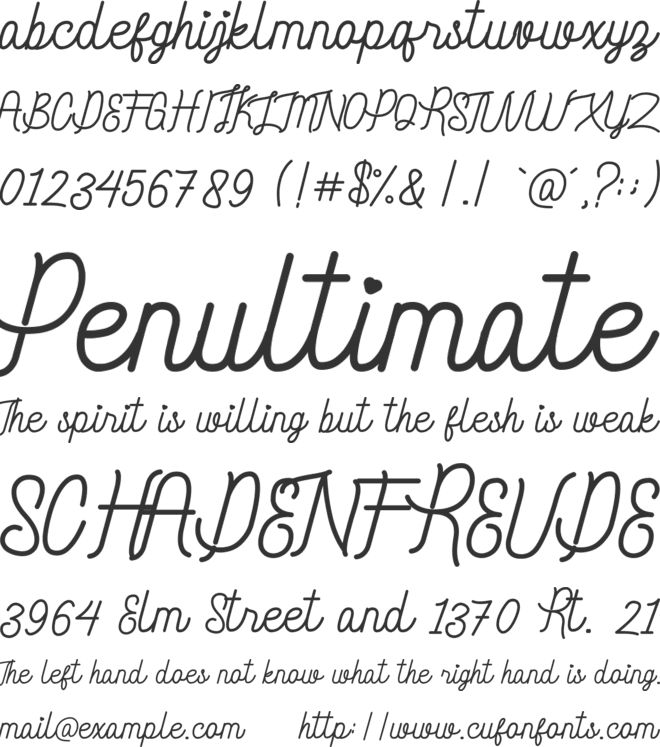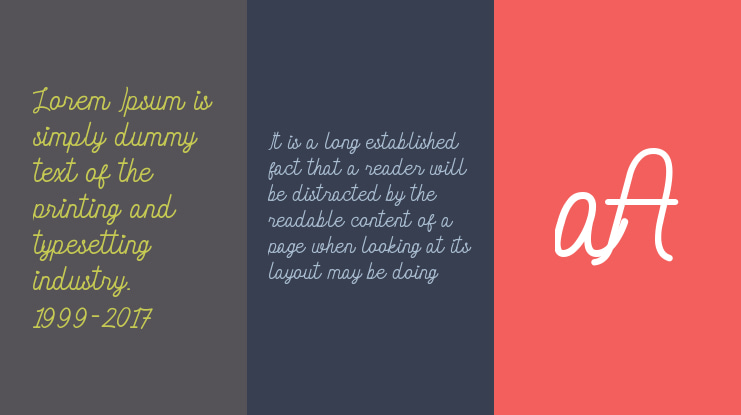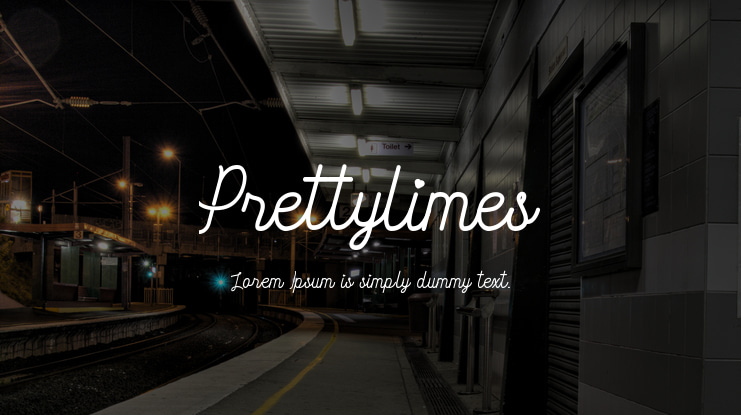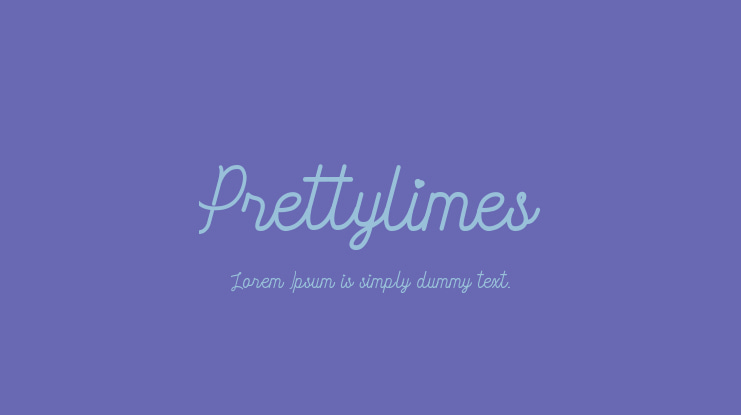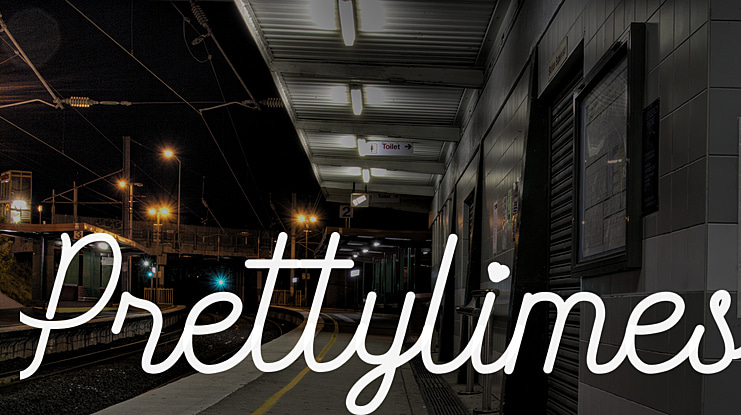
Prettylimes Font
Prettylimes is a beauty monoline font for signature, template design, wedding invitations, display tittle, and many more. This font sweet and friendly monoline font. Its natural style makes it incredibly fitting to a large pool of designs or suitable for anything you want.